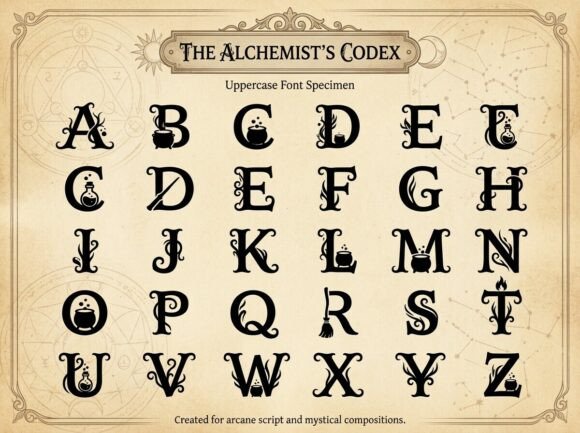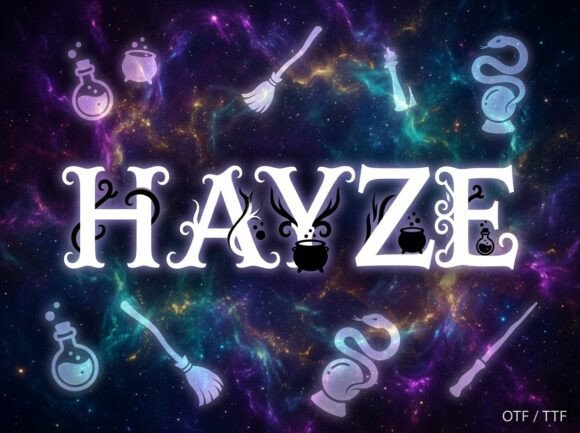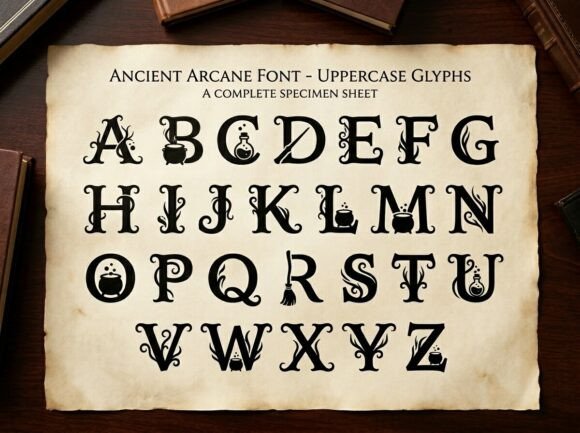
Introducing Hayze Font: A Stunning Decorative Display Font
Are you tired of using the same old fonts for your designs? Look no further than Hayze Font, a unique and artistic display font that’s sure to turn heads. With its strong visual personality and decorative elements, this font is perfect for creators who want to add a touch of elegance and sophistication to their work.
What Makes Hayze Font Special?
Hayze Font is a decorative display font designed to be the center of attention. Its unique artistic elements and strong visual personality make it perfect for bold headlines, artistic logos, and creative packaging. Whether you’re a designer, craftsperson, or DIY enthusiast, this font is sure to elevate your work to the next level.
Key Features of Hayze Font
- Unique Artistic Elements: Hayze Font features intricate and decorative elements that add a touch of elegance to any design.
- Strong Visual Personality: This font has a bold and eye-catching appearance that’s sure to grab attention.
- Versatile: Hayze Font is perfect for a variety of design applications, including bold headlines, artistic logos, and creative packaging.
- Professional and Polished Finish: Despite its decorative nature, Hayze Font maintains a professional and polished finish that’s suitable for even the most high-end designs.
IMPORTANT NOTE BEFORE PURCHASE: Hayze Font is an ALL-CAPS (Uppercase Only) display typeface. It does not include lowercase letters. It is specifically designed for high-impact headlines, logos, and decorative initials where every letter is a work of art.
Why Choose Hayze Font?
There are many reasons why Hayze Font stands out from the crowd. Here are just a few:
- Uniqueness: Hayze Font is a one-of-a-kind font that’s sure to make your designs stand out.
- Elegance: With its decorative elements and strong visual personality, Hayze Font adds a touch of elegance to any design.
- Versatility: This font is perfect for a variety of design applications, from bold headlines to artistic logos and creative packaging.
- Professionalism: Despite its decorative nature, Hayze Font maintains a professional and polished finish that’s suitable for even the most high-end designs.
How to Use Hayze Font
Hayze Font is perfect for a variety of design applications, including:
- Headlines: Use Hayze Font to create bold and eye-catching headlines that grab attention.
- Logos: Create unique and artistic logos that showcase your brand’s personality.
- Packaging: Add a touch of elegance to your packaging designs with Hayze Font.
- Signage: Use Hayze Font to create eye-catching signs and displays that showcase your message.
Here are a few tips and tricks to help you get the most out of Hayze Font:
- Experiment with Colors: Try pairing Hayze Font with different colors to create unique and eye-catching designs.
- Play with Size: Experiment with different font sizes to create visual interest and hierarchy.
- Add Texture: Try adding texture to your designs to give them a more organic and tactile feel.